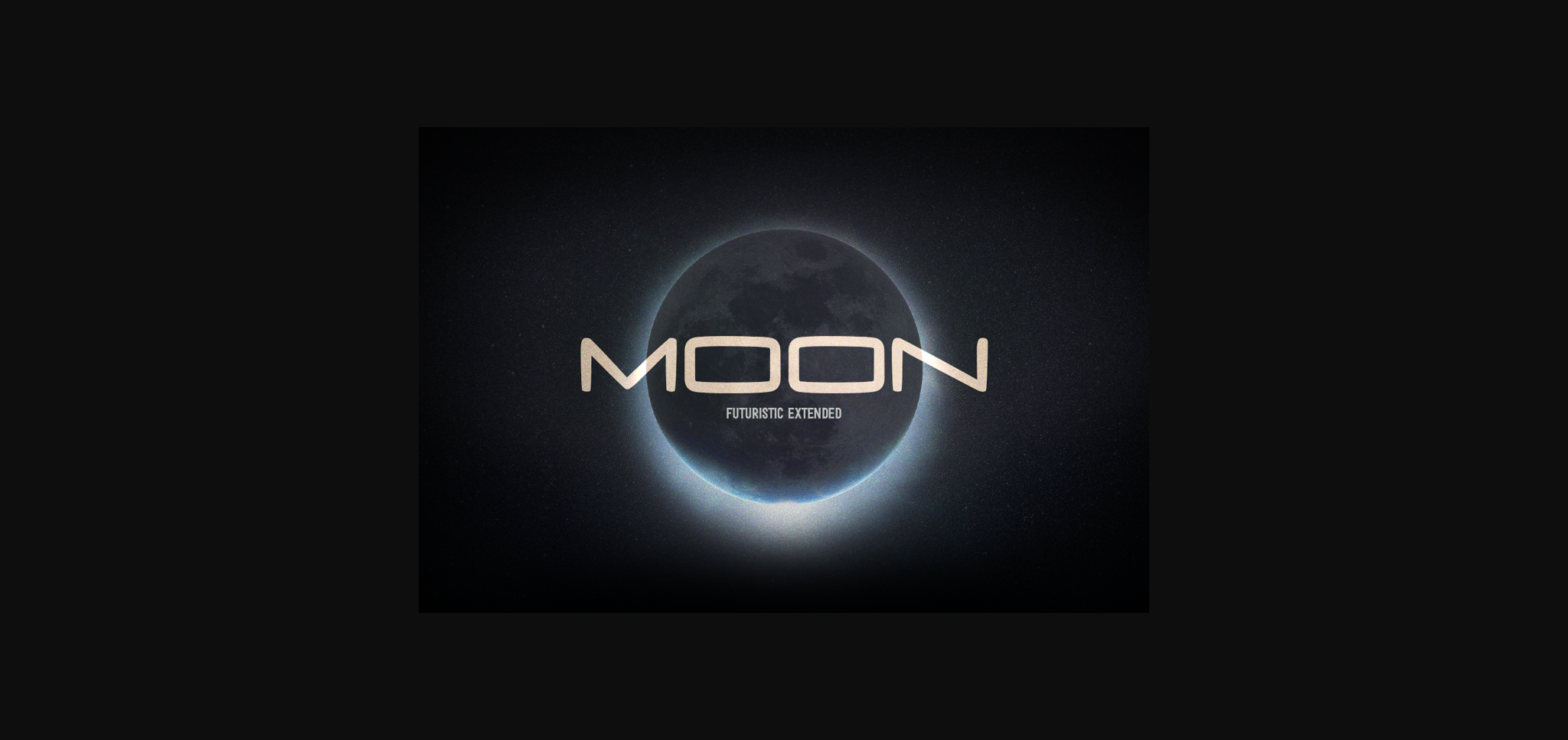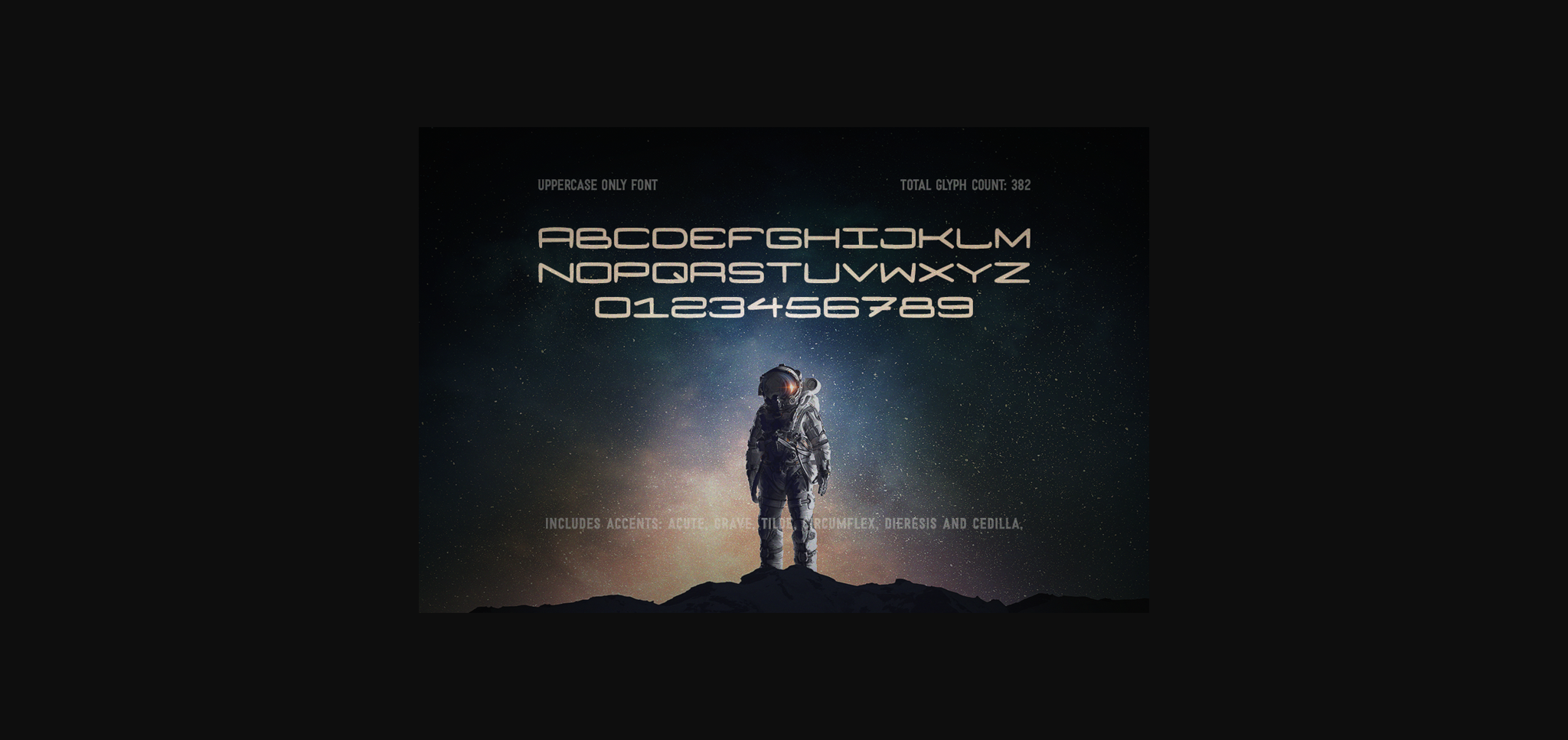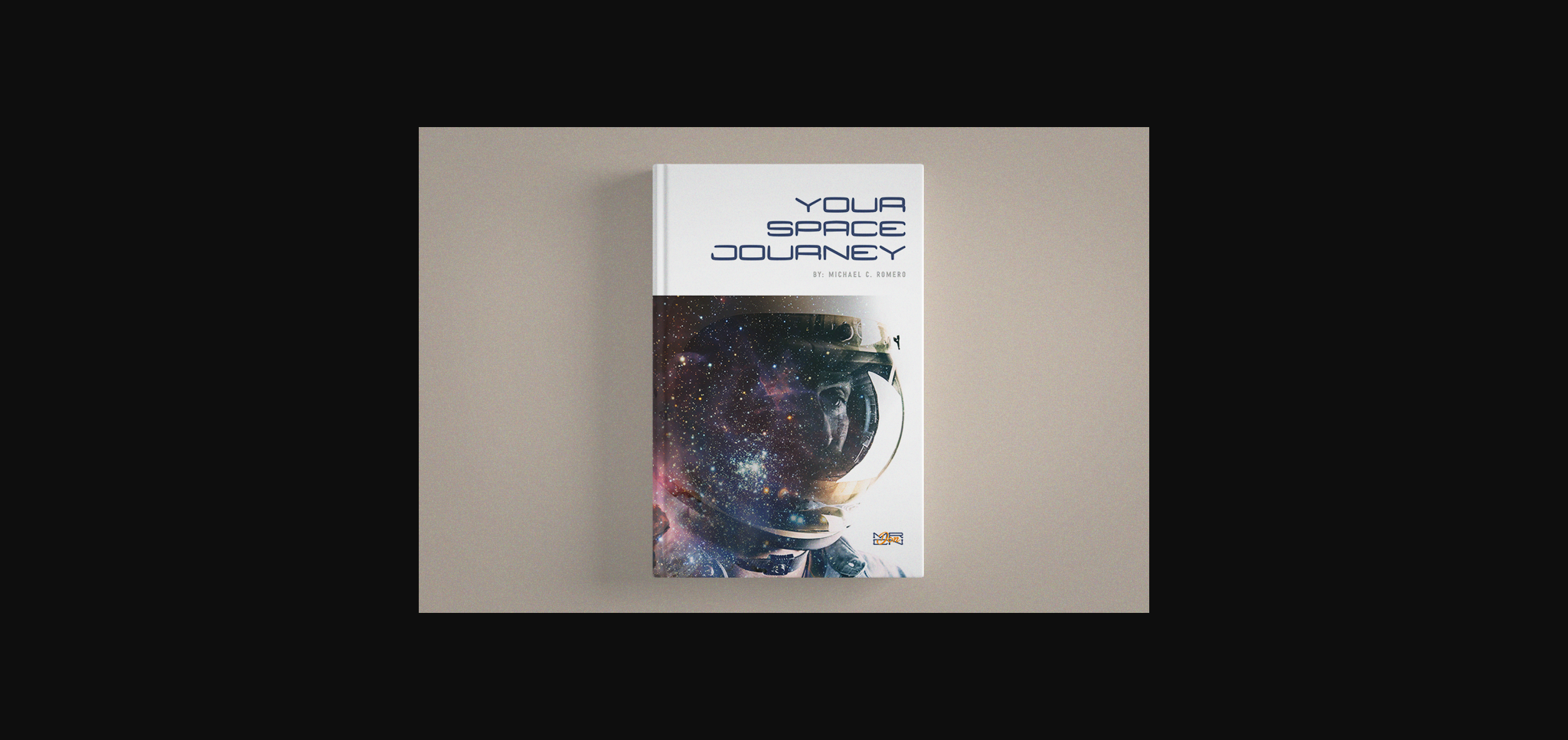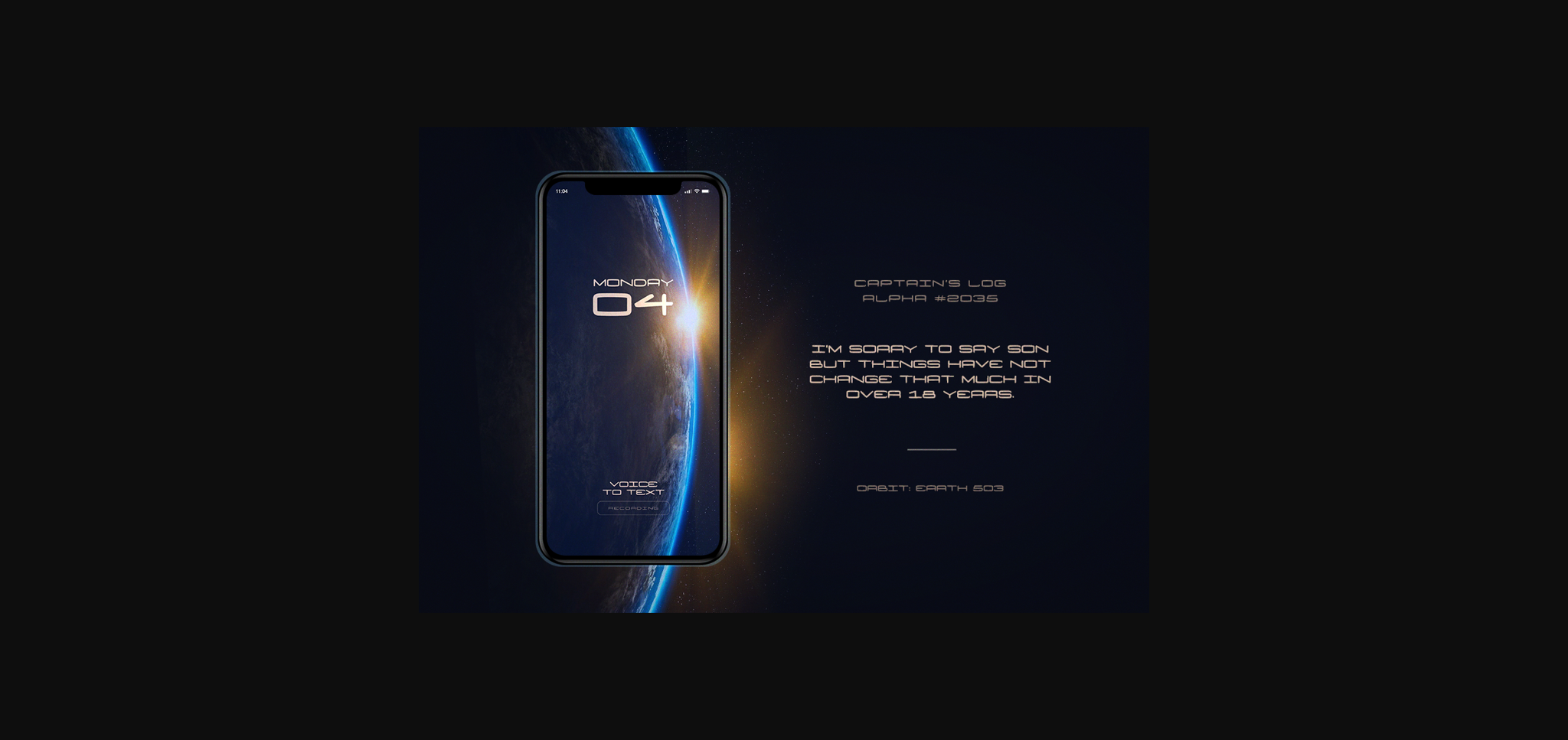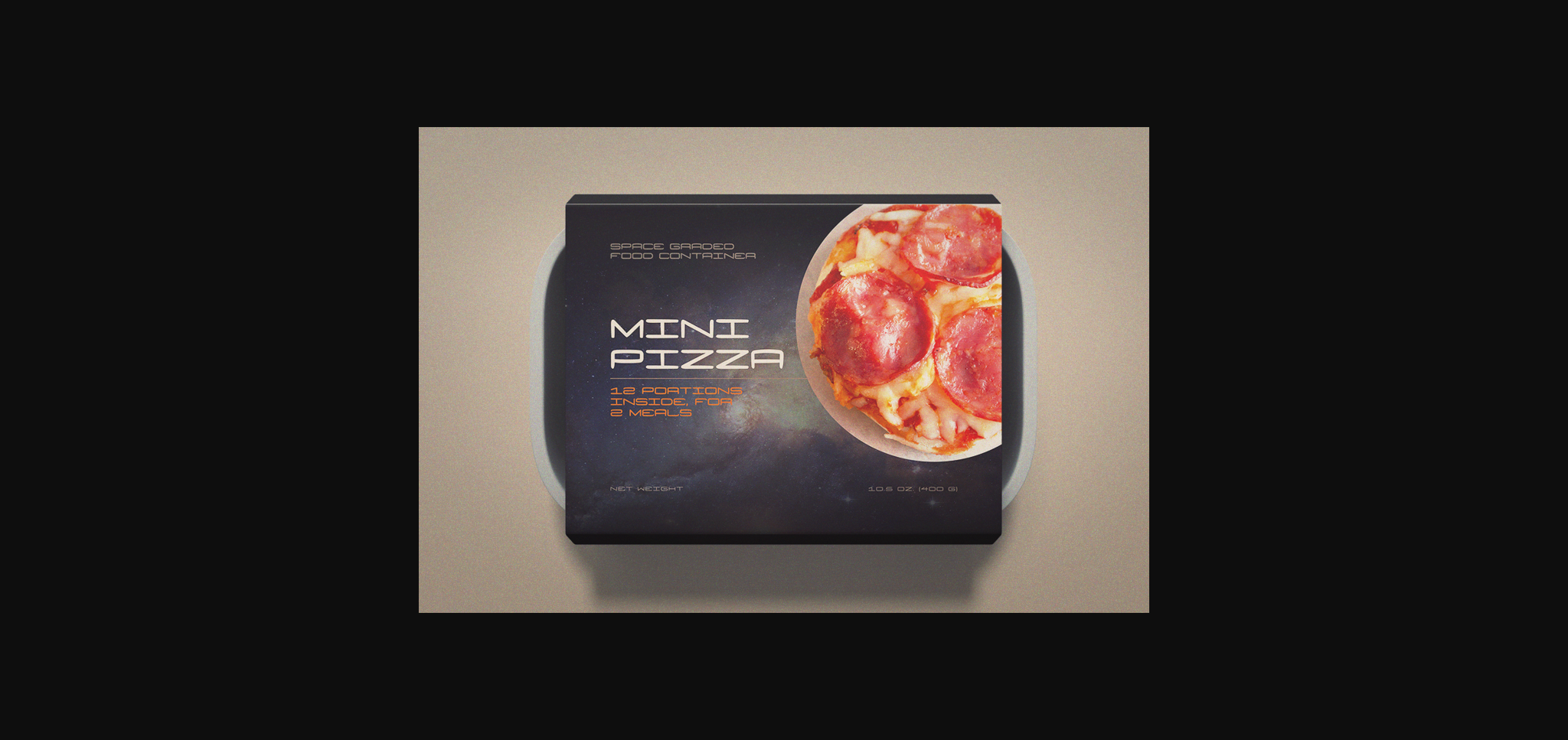
About Moon Font
Moon is a handmade font created with only uppercase and standard punctuation and some international characters for multilanguage support. With a futuristic vibe and sci-fi look and feel, uses clean rounded uneven lines, ideal for projects with a unique out of this world theme.